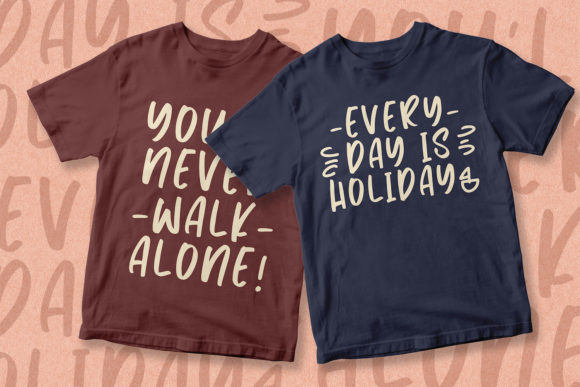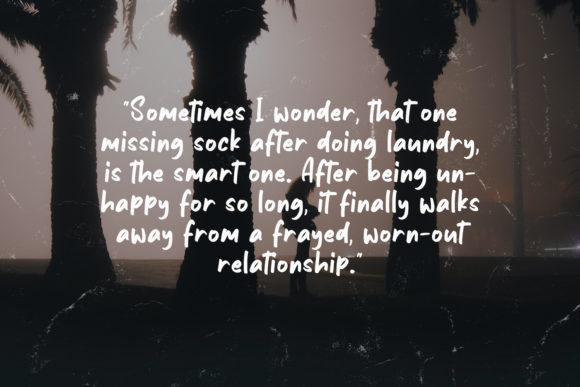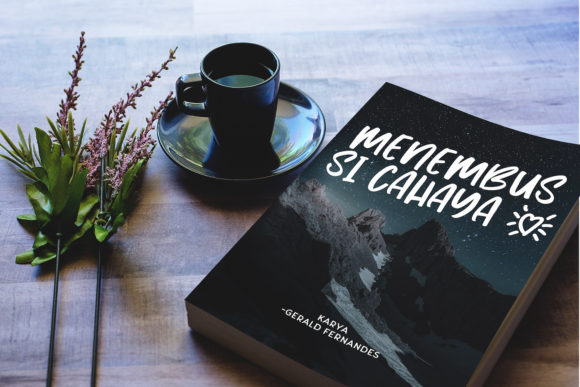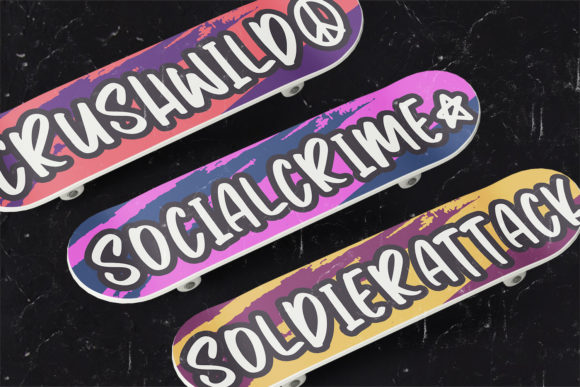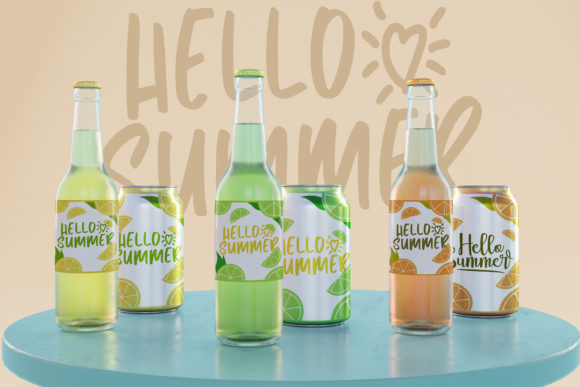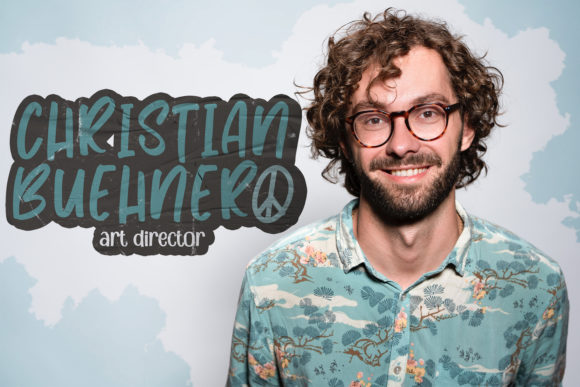
Avenus Type Font: The Cute and Quirky Display Font You Need
Are you tired of using the same old fonts for your creative projects? Look no further than Avenus Type, a cute and quirky display font that’s sure to make your designs stand out. With its friendly feel and versatile nature, Avenus Type is the perfect addition to any designer’s toolkit.
What is Avenus Type Font?
Avenus Type is a display font that’s designed to add a touch of whimsy and playfulness to your designs. Its unique and quirky style makes it perfect for projects that require a bit of personality, such as branding, packaging, and advertising. The font’s friendly feel also makes it suitable for use in children’s books, educational materials, and other projects where a approachable tone is desired.
Key Features of Avenus Type Font
- Cute and Quirky Style: Avenus Type’s unique design makes it perfect for projects that require a bit of personality.
- Versatile: The font’s friendly feel makes it suitable for use in a wide range of contexts, from branding and packaging to children’s books and educational materials.
- Display Font: Avenus Type is designed to make a statement, making it perfect for headlines, titles, and other display text.
Why Use Avenus Type Font?
There are many reasons why designers and crafters should consider adding Avenus Type to their toolkit. Here are just a few:
- Adds Personality to Your Designs: Avenus Type’s unique style allows you to add a bit of personality to your designs, making them more engaging and memorable.
- Versatile: The font’s friendly feel makes it suitable for use in a wide range of contexts, from formal to informal.
- Easy to Read: Despite its quirky style, Avenus Type is easy to read, making it perfect for use in body text as well as display text.
How to Use Avenus Type Font
Avenus Type is easy to use and can be incorporated into your designs in a variety of ways. Here are a few ideas to get you started:
- Branding and Packaging: Use Avenus Type to add a bit of personality to your brand’s logo, packaging, and marketing materials.
- Children’s Books and Educational Materials: The font’s friendly feel makes it perfect for use in children’s books, educational materials, and other projects where a approachable tone is desired.
- Advertising and Marketing: Avenus Type’s quirky style makes it perfect for use in advertising and marketing materials, such as flyers, brochures, and social media graphics.
Tips for Getting the Most Out of Avenus Type Font
Here are a few tips for getting the most out of Avenus Type:
- Experiment with Different Sizes and Colors: Avenus Type looks great in a variety of sizes and colors, so don’t be afraid to experiment and find the combination that works best for your design.
- Pair it with Other Fonts: Avenus Type pairs well with a variety of other fonts, so try combining it with some of your favorite fonts to create a unique and interesting look.
- Use it to Add Emphasis: Avenus Type’s quirky style makes it perfect for adding emphasis to certain words or phrases in your design.
Avenus Type is a cute and quirky display font that’s sure to make your designs stand out. With its friendly feel and versatile nature, it’s the perfect addition to any designer’s toolkit. Whether you’re working on a branding project, a children’s book, or an advertising campaign, Avenus Type is a great choice. So why not give it a try and see how it can add a bit of personality to your designs?